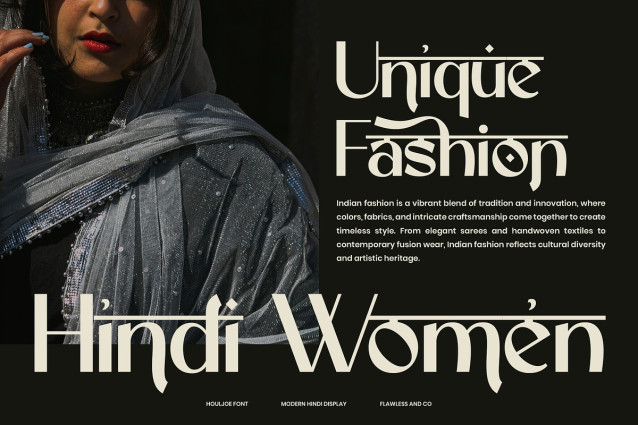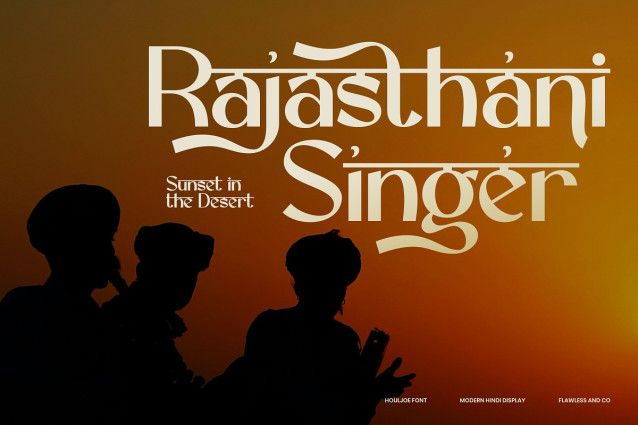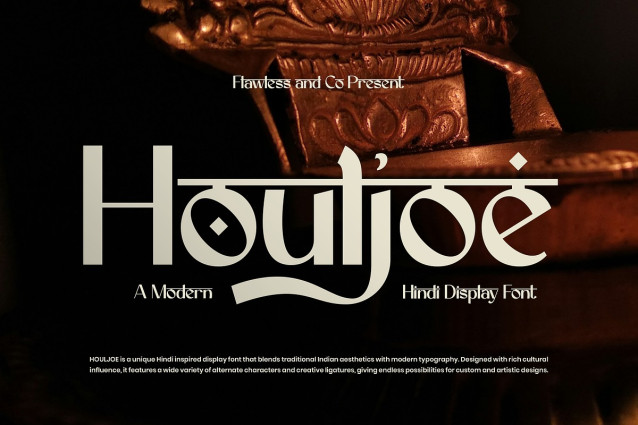
Houljoe Display Font
Houljoe Display Font is a bold and artistic Hindi-inspired display font that merges cultural heritage with contemporary design. With its unique letterforms and elegant details, it brings a touch of authenticity while staying versatile for modern creative projects. Crafted with inspiration from traditional Hindi aesthetics, Houljoe offers a collection of alternate characters and stylistic ligatures, giving designers endless ways to customize and experiment. Whether for branding, editorial, packaging, or artistic titles, this font adds sophistication and character to every design it touches.